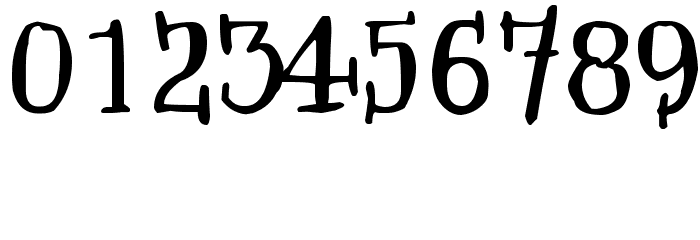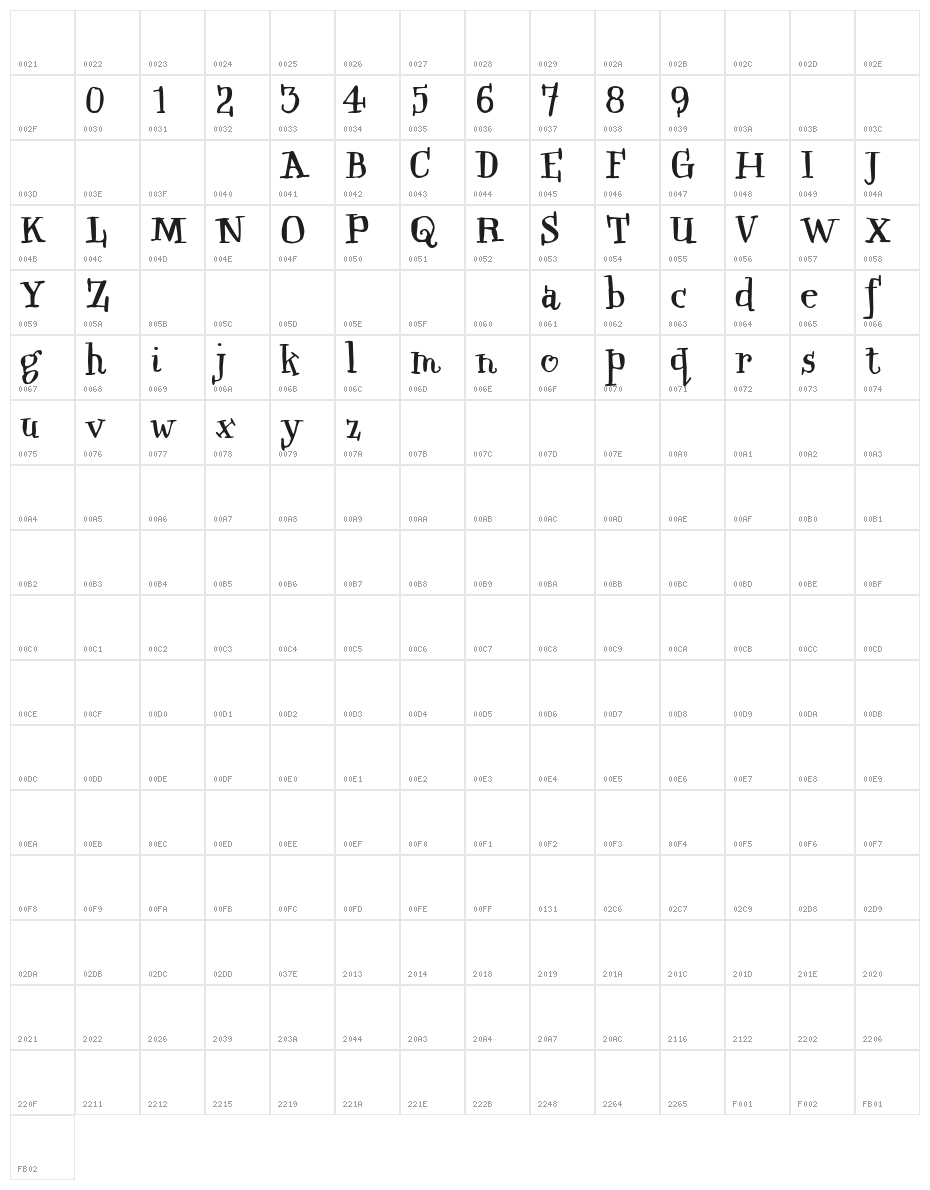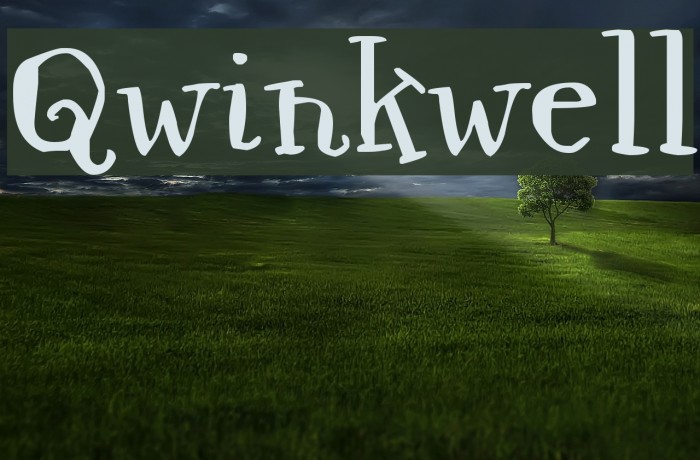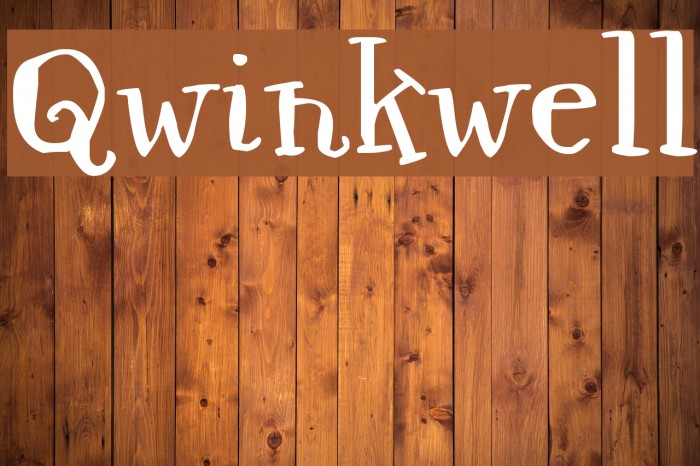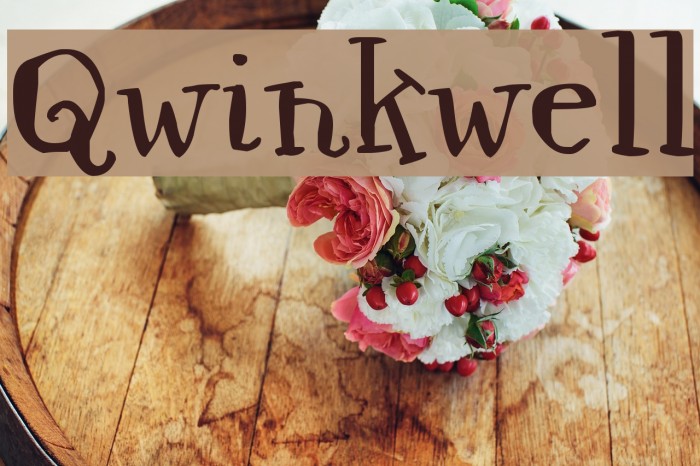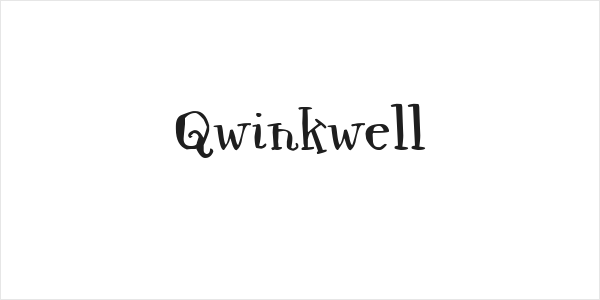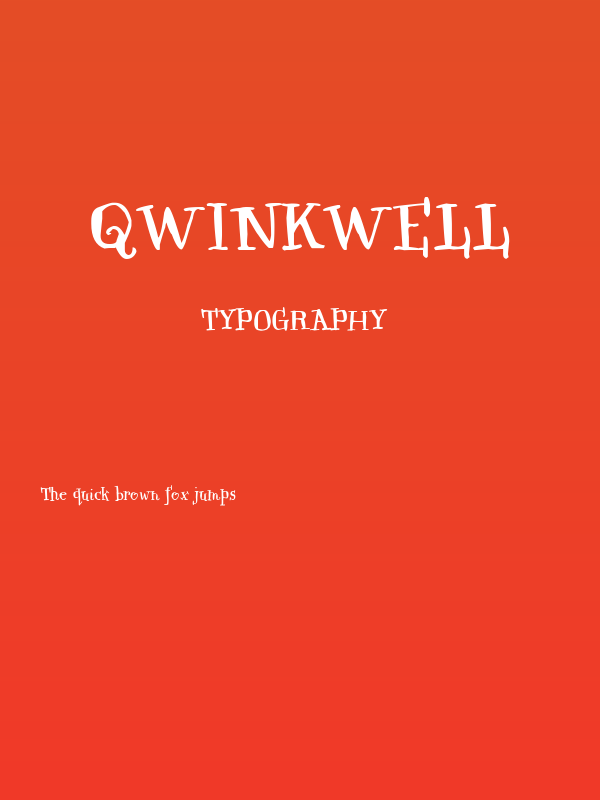
Qwinkwell Font
Qwinkwell Description
This font exudes a playful and whimsical charm with its irregular, hand-drawn appearance. The characters are characterized by uneven strokes and varying thicknesses, giving it a lively and dynamic feel. The uppercase letters are bold and slightly tilted, while the lowercase letters maintain a consistent, quirky style. The numbers follow the same playful design, making them stand out with their unique shapes. Special characters are creatively integrated, adding to the font's overall artistic appeal. This font is perfect for projects that require a touch of creativity and fun, such as children's books, playful branding, or artistic posters.
| Proposed Projects | Ideal for children's books, playful branding, artistic posters, and creative invitations. |